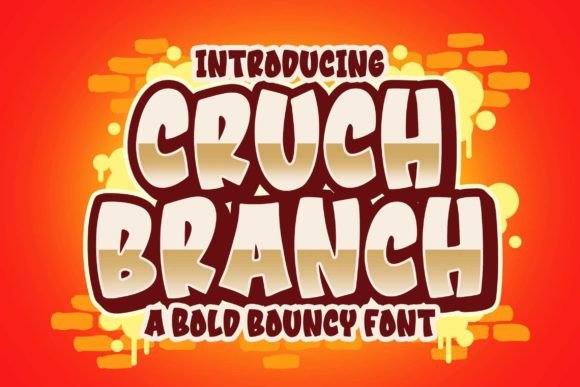
Cruch Branch Font
Crunch Branch is a bold and bouncy display font perfect for book covers, children’s books, comics, posters, packaging, merchandise, logo design, and many more. If you are looking for a comic/cartoon font to create something fun and outstanding, Crunch Branch is for you!